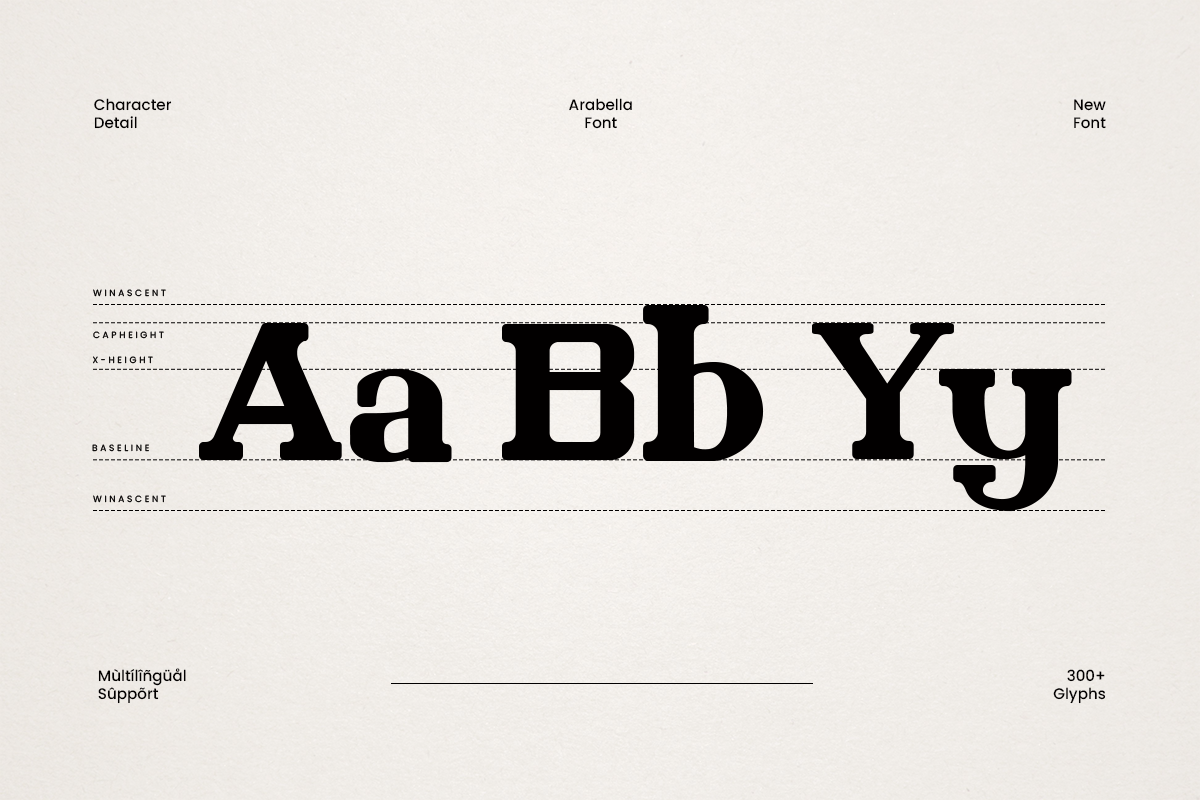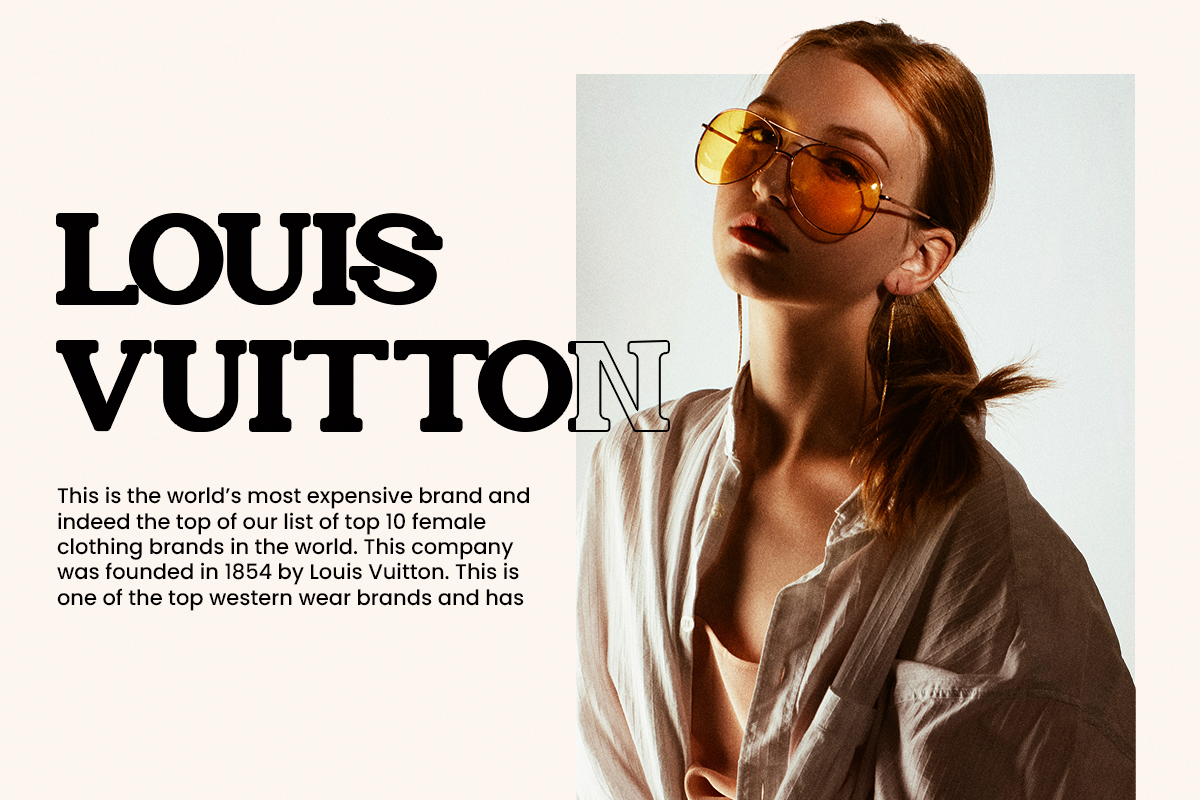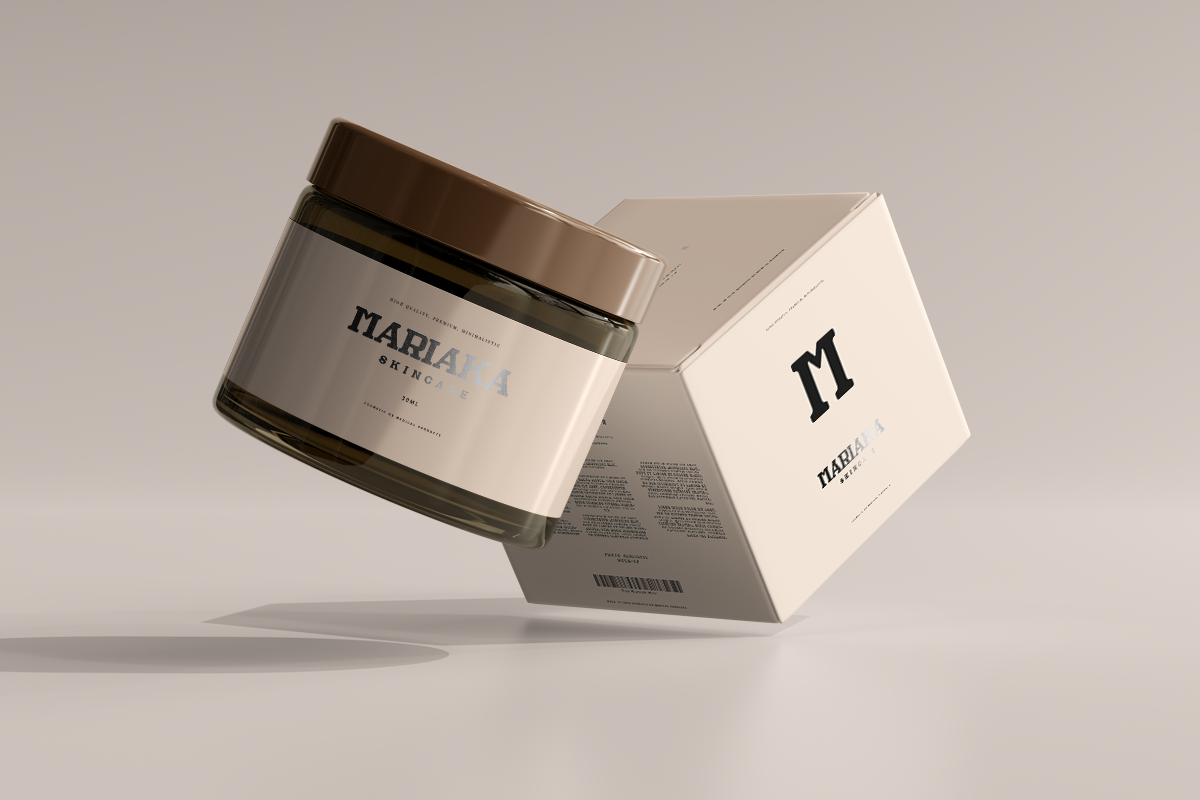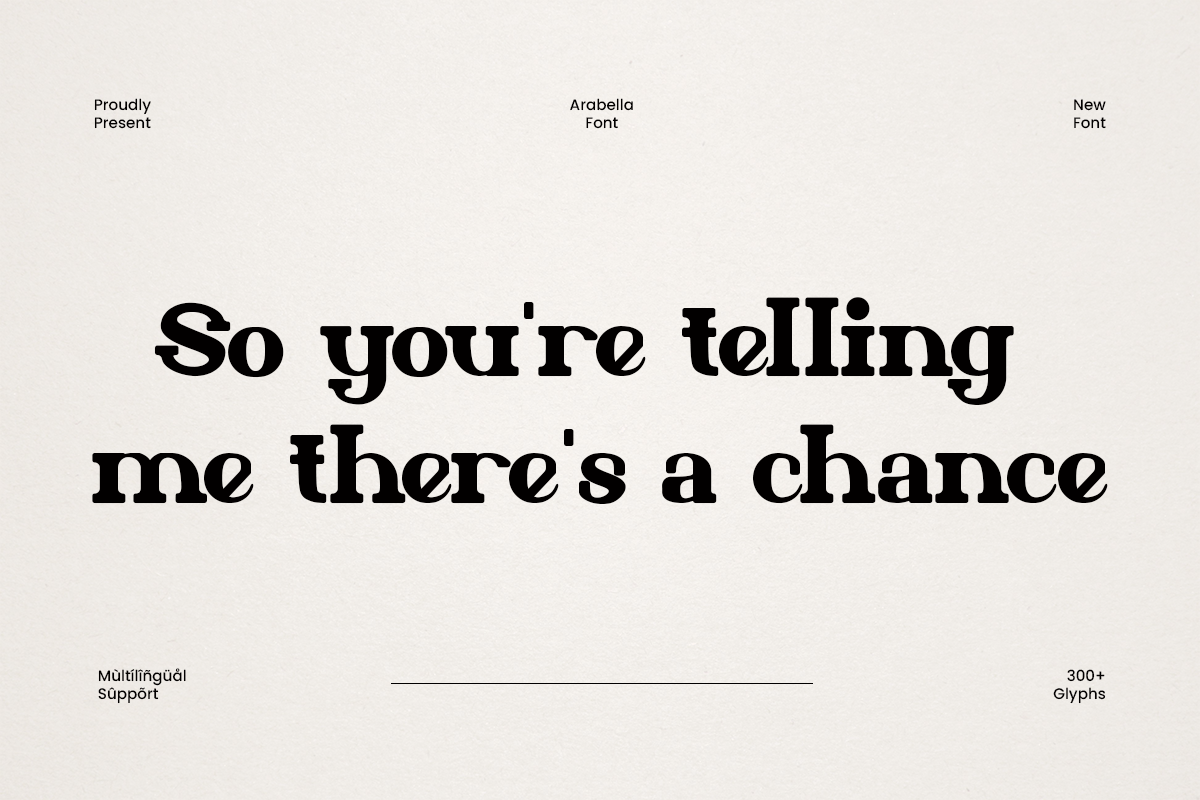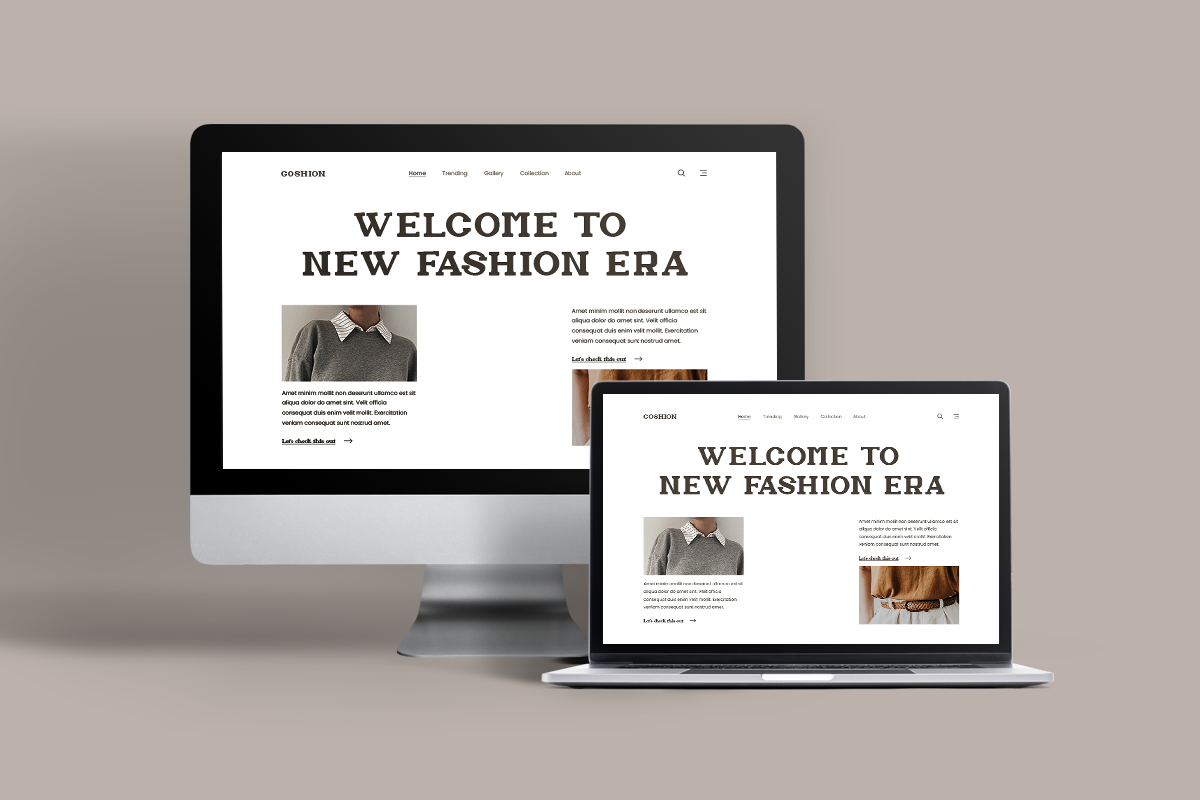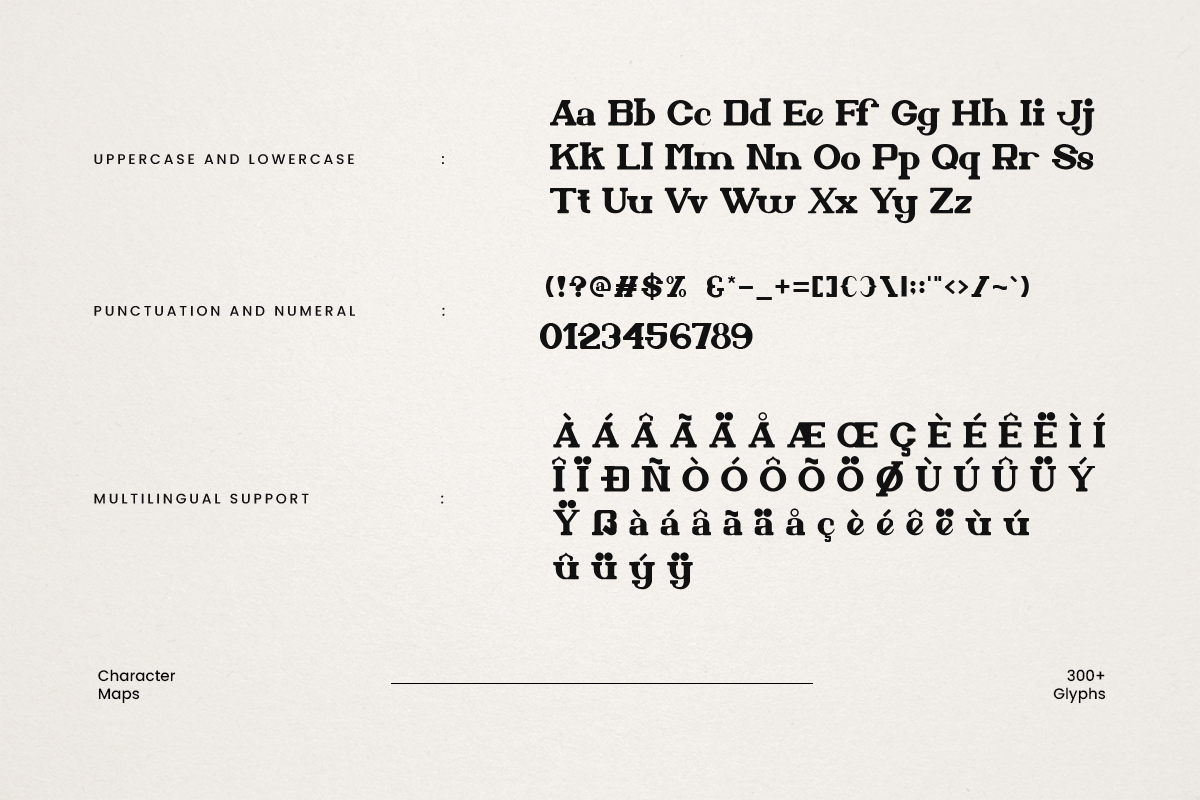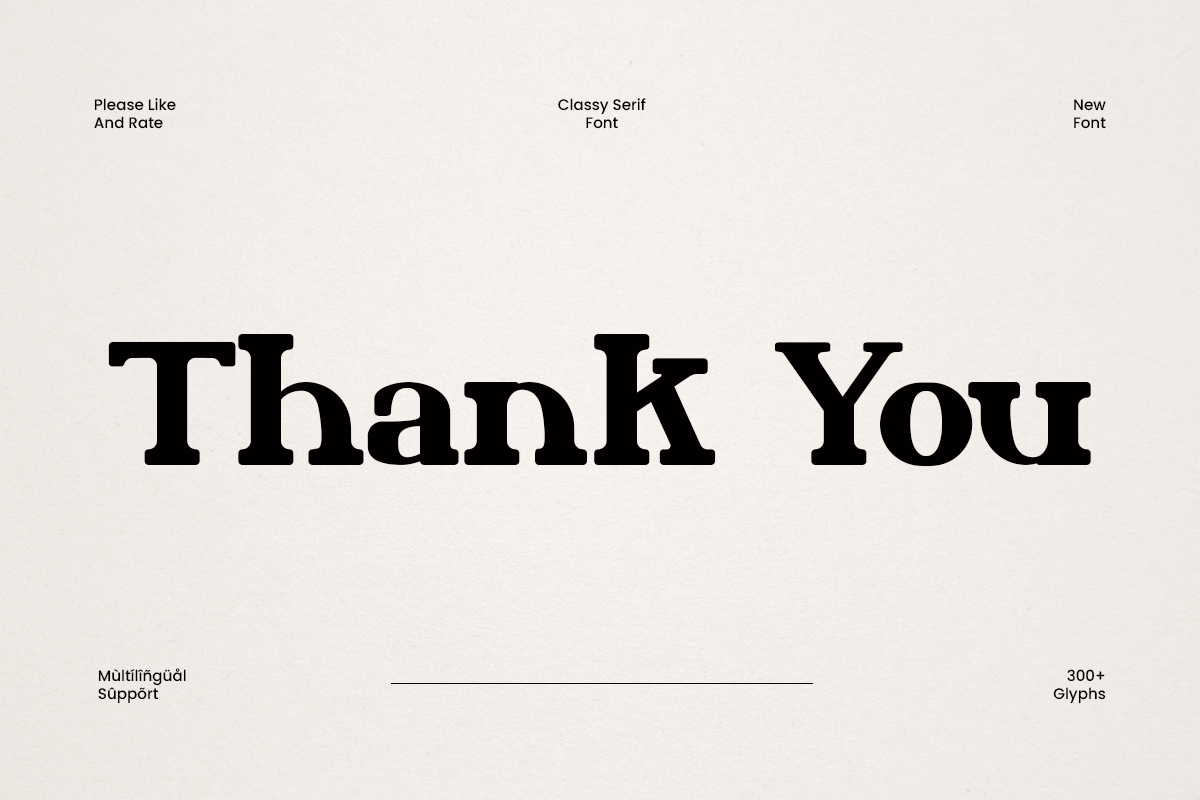
Arabella Serif Font As the name suggests, Arabella Serif Font is a typeface that exudes a stylish and modern impression. Easy to read yet artistic, this font can serve many uses depending on the user. This font is best used largely as it has a medium serif. Arabella Serif Font is part of the serif font family. Arabella Serif Font can be used as a digital font such as for promotions on the web and social media, as well as in print forms, such as magazines and posters. One product that can be combined with this font is fashion and beauty. Magazines that cover fashion and beauty topics can use Arabella Serif Font for their covers. This font can use as product branding, such as brand tags and posters. Keeping in mind modern business needs, Arabella Serif Font is also suitable for personal business cards and business signage that denotes a place, such as cafes, boutiques, and make-up shops. Our Serif fonts collection is compatible for use as Figma Fonts, Canva Fonts, Freepik Fonts, and Adobe Fonts. They also work as Windows Fonts and Apple Fonts. For your social media needs, you can use and install fonts in our collection of serif fonts to use as Instagram Fonts, Facebook Fonts, and Twitter Fonts.